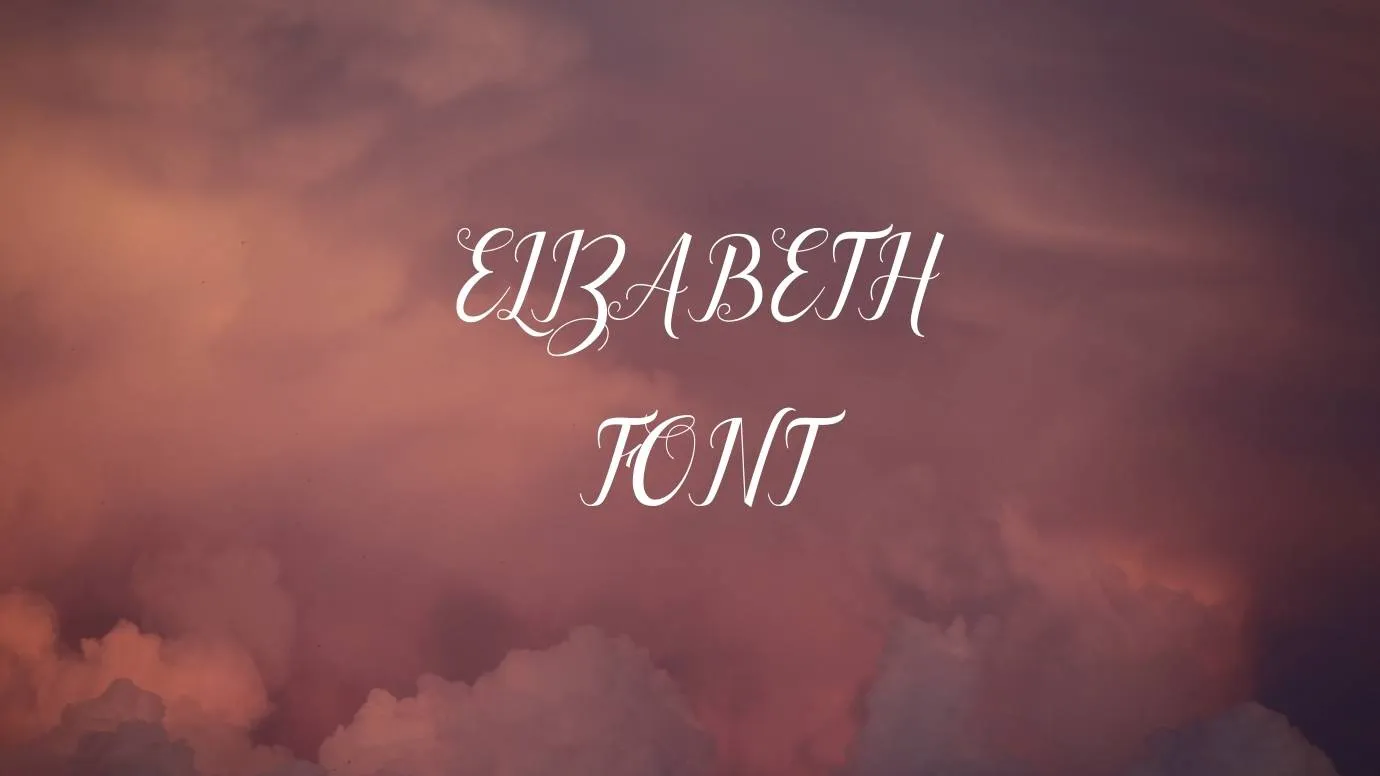
Elizabeth Script font family, a dazzling font that dances with romance and allure. Its calligraphy characters are a feast for the eyes, boasting an uneven baseline that breathes life and style into any design.
This font family has 68 coolest characters than some other script typefaces which are upper and lower case letters, punctuation marks, numerals, updated icons.
NameElizabeth Font
DesignerUnicode Studio
StyleScript
Date Released2018